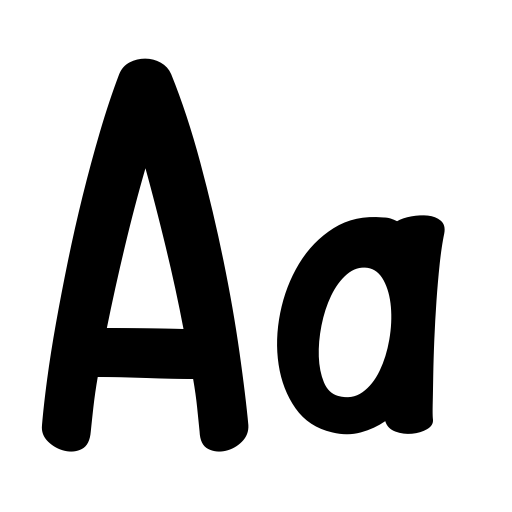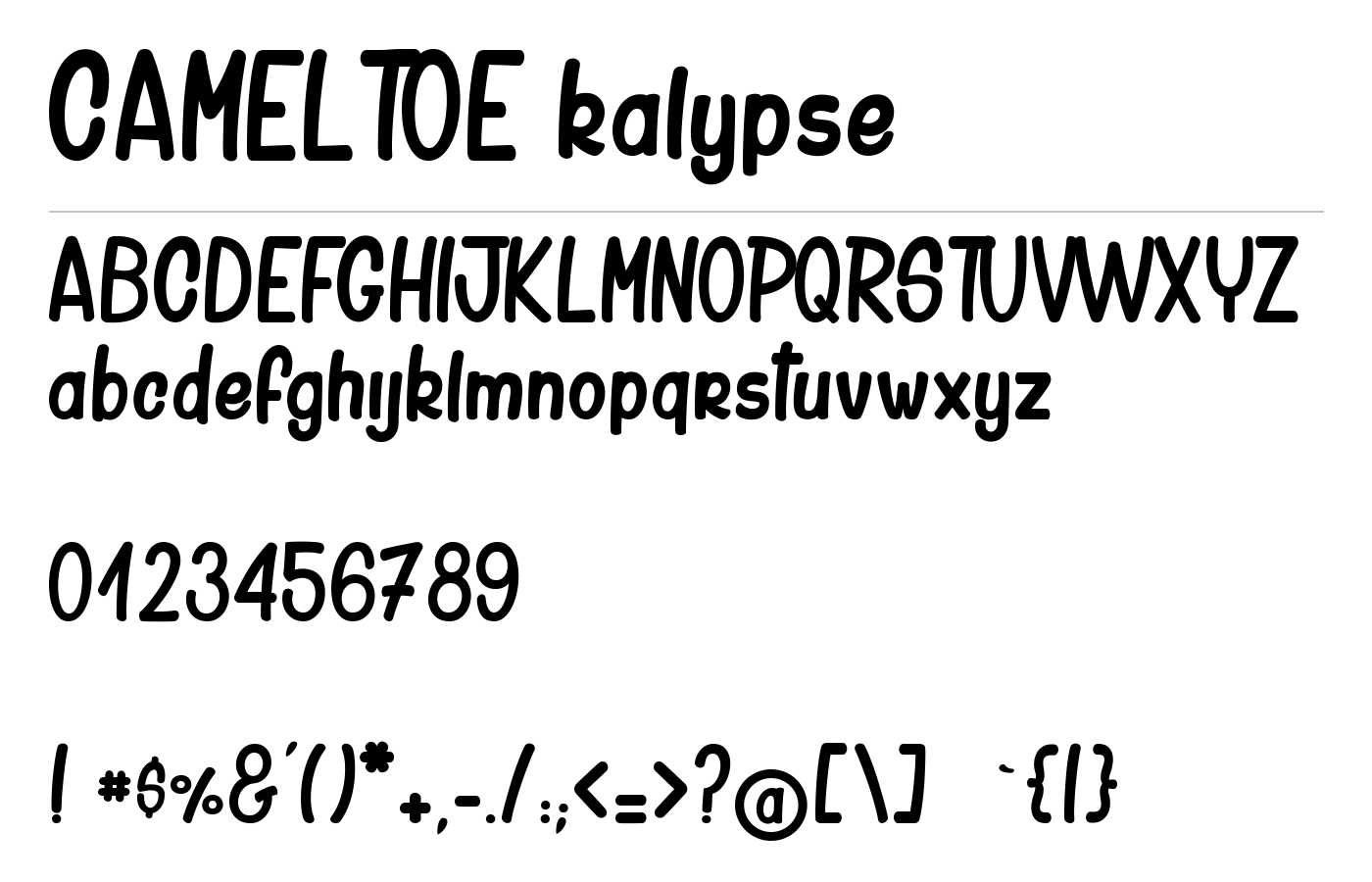
CAMELTOE kalypse is a playful and casual sans serif font with a hand-drawn feel, featuring rounded, slightly irregular letterforms that give it a friendly and approachable vibe. Its medium weight and tall x-height ensure good readability, making it ideal for informal branding, children’s books, or creative projects that want to convey warmth and personality. This font works well in headlines and short text where a lively and unique expression is desired.
CAMELTOE kalypse Font
About CAMELTOE kalypse Font